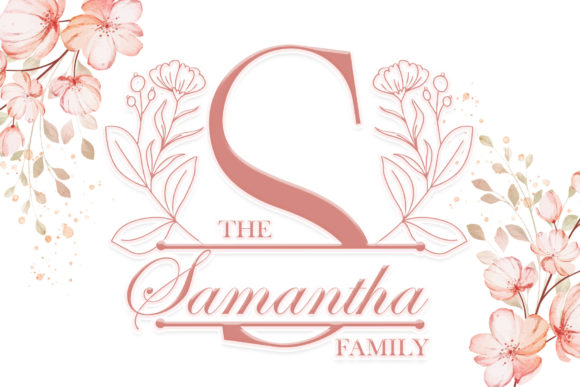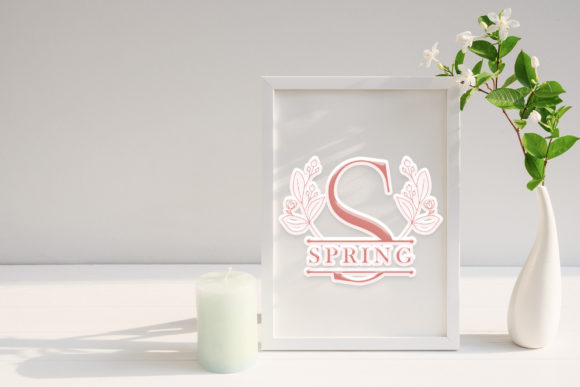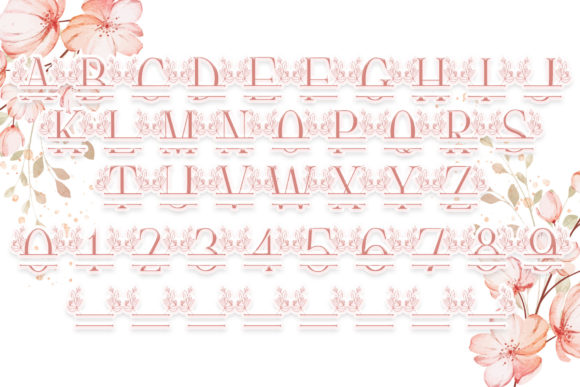
Baby Blossom Line Font: The Perfect Decorative Typeface for Your Designs
Baby Blossom Line Font is a stunning decorative font that combines the elegance of solemn letters with the playfulness of cute floral wreaths. This beautiful typeface is perfect for designers and crafters looking to add a touch of whimsy and charm to their designs. In this article, we’ll take a closer look at the features and benefits of Baby Blossom Line Font, and explore how you can use it to create amazing designs.
A Unique and Eye-Catching Typeface
Baby Blossom Line Font is a gorgeous decorative font that stands out from the crowd. Its unique combination of solemn letters and cute floral wreaths creates a beautiful contrast that is sure to catch the eye. The font’s elegant letters provide a sophisticated base, while the floral wreaths add a playful and feminine touch. This makes Baby Blossom Line Font perfect for designs that require a touch of elegance and whimsy.
Features of Baby Blossom Line Font
Baby Blossom Line Font comes with a range of features that make it a versatile and practical choice for designers and crafters. Some of its key features include:
- Unique and eye-catching design: The font’s combination of solemn letters and floral wreaths creates a unique and eye-catching design that is sure to stand out.
- Elegant and sophisticated: The font’s elegant letters provide a sophisticated base that is perfect for designs that require a touch of elegance.
- Playful and feminine: The floral wreaths add a playful and feminine touch that is perfect for designs that require a touch of whimsy.
- High-quality design: The font is designed to high standards, ensuring that it looks great in any design.
Uses for Baby Blossom Line Font
Baby Blossom Line Font is a versatile typeface that can be used for a wide range of design projects. Some of its most popular uses include:
- Wedding designs: The font’s elegant and whimsical design makes it perfect for wedding designs, such as invitations, decorations, and favors.
- Party decorations: The font’s playful and feminine design makes it perfect for party decorations, such as banners, signs, and invitations.
- Branding and packaging: The font’s unique and eye-catching design makes it perfect for branding and packaging projects that require a touch of elegance and whimsy.
- Digital designs: The font’s high-quality design ensures that it looks great in digital designs, such as social media graphics, blog posts, and website headers.
Tips for Using Baby Blossom Line Font
To get the most out of Baby Blossom Line Font, here are a few tips to keep in mind:
- Use it sparingly: The font’s decorative design can be overwhelming if used too much. Use it sparingly to add a touch of elegance and whimsy to your designs.
- Pair it with a simple font: Pair Baby Blossom Line Font with a simple font to create a beautiful contrast that adds depth and interest to your designs.
- Experiment with colors and textures: The font’s design looks great in a range of colors and textures. Experiment with different colors and textures to find the perfect combination for your design.
Baby Blossom Line Font is a gorgeous decorative font that is perfect for designers and crafters looking to add a touch of elegance and whimsy to their designs. Its unique combination of solemn letters and cute floral wreaths creates a beautiful contrast that is sure to catch the eye. With its range of features, uses, and tips for use, Baby Blossom Line Font is a versatile typeface that is sure to become a favorite in your design toolkit.